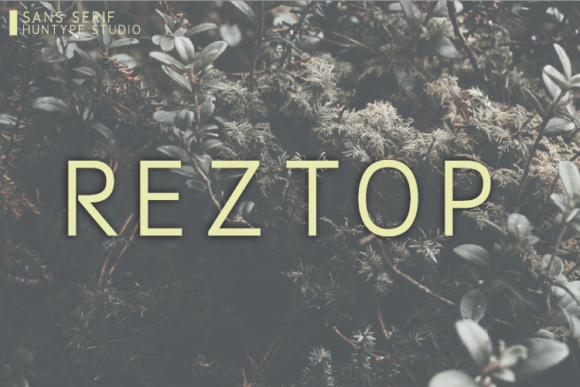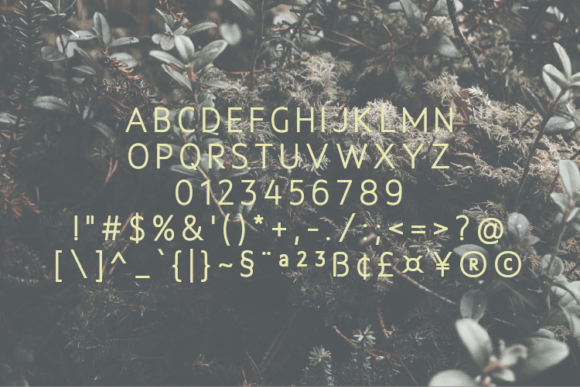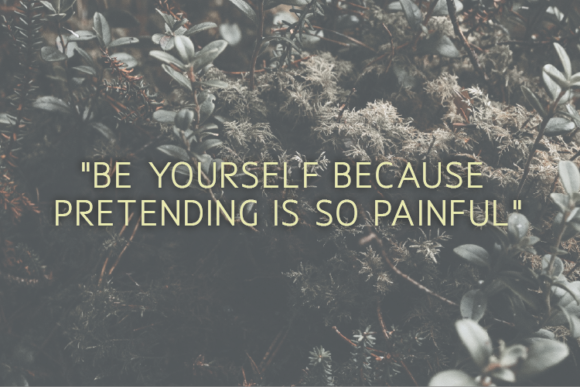
Reztop
About Reztop Font
Reztop is a thin and neat lettered sans serif font. No matter the topic, this font will be an incredibly asset to your fonts’ library, as it has the potential to elevate any creation.